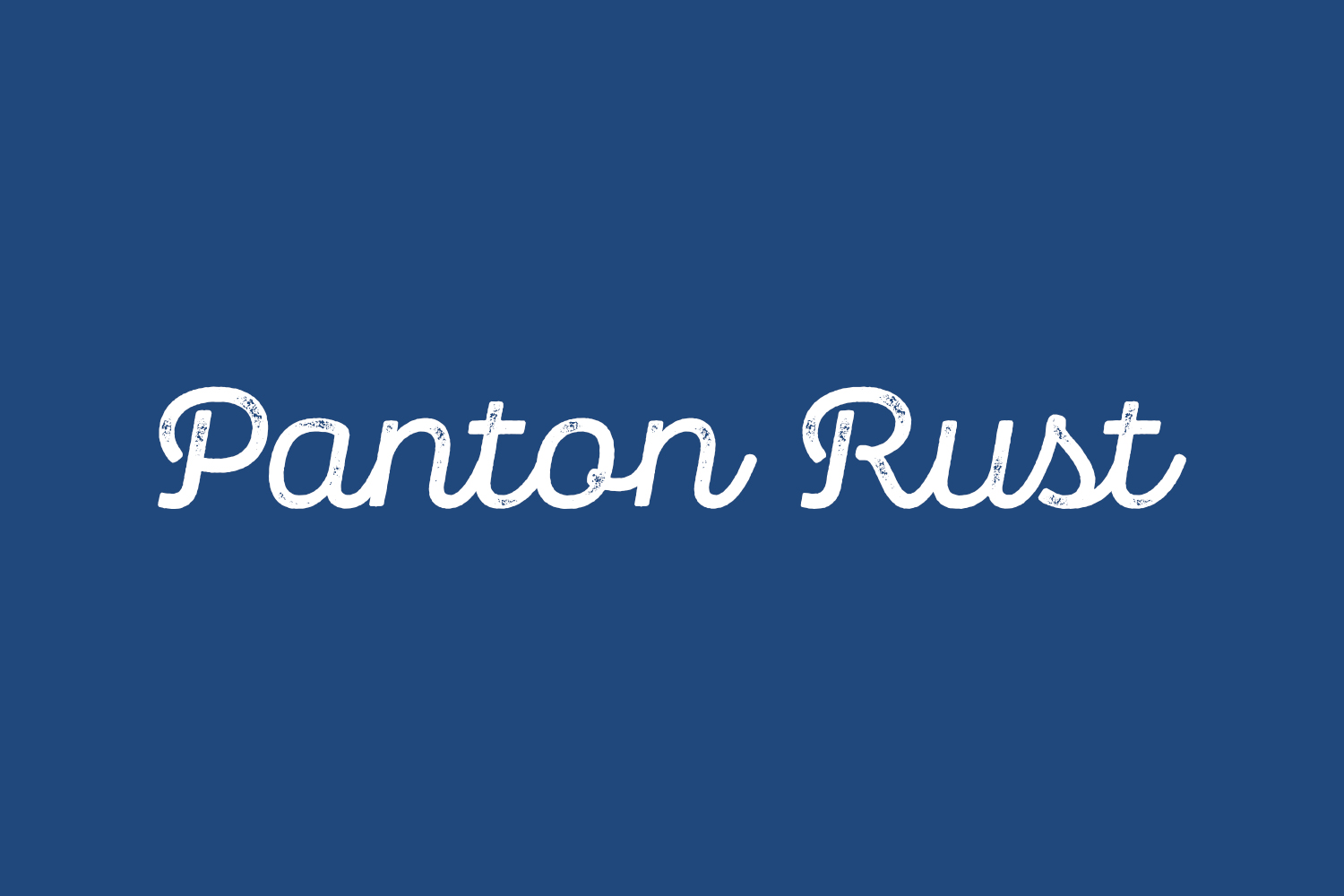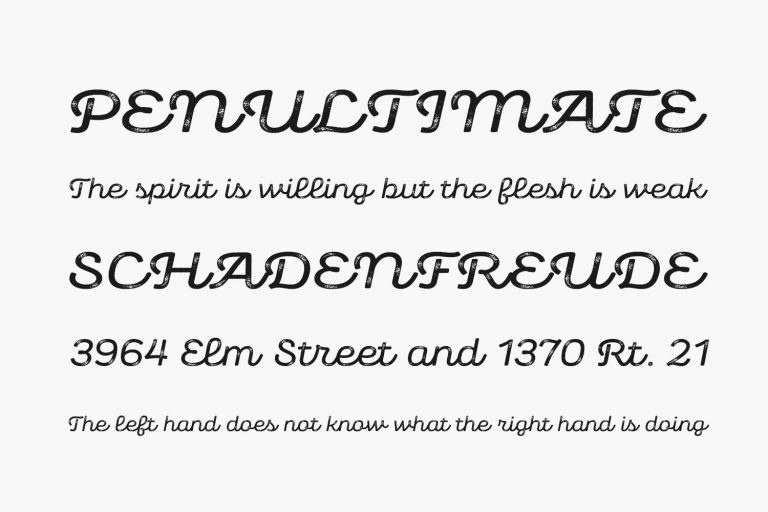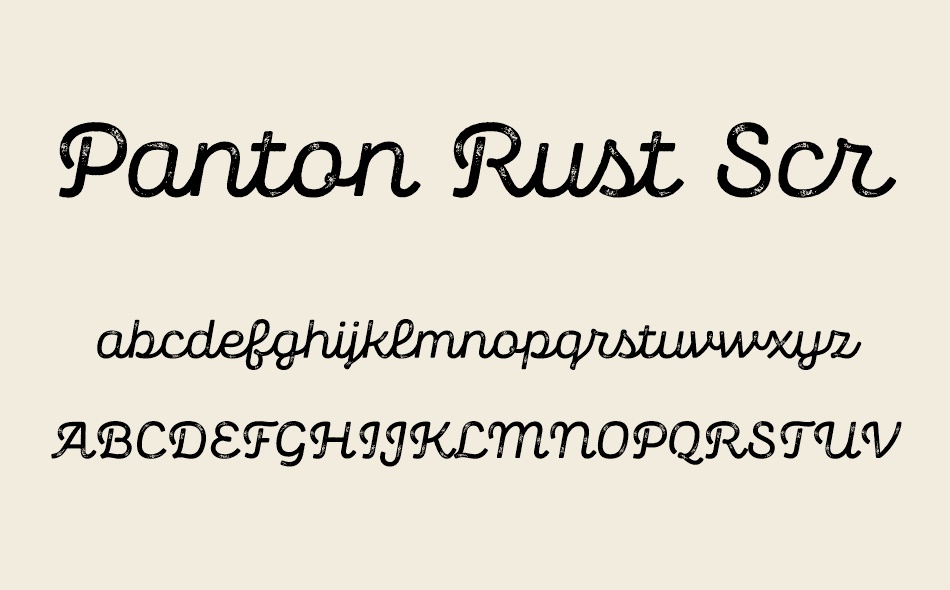
Panton Rust Bold Base Font Free Download
Panton Rust Bold Base Font Free Download - Start your engines and get ready for 72 fonts, grouped into five weights ranging from semibold to heavy, and including multiple base. Make the art more fun because you've already. The panton rust script bold base font has a script typography and is great for elegant invitation art. 100% panton rust—display family of 72 fonts—base & script—extended latin & cyrillic—get 2 free @ fontfabric.com today.